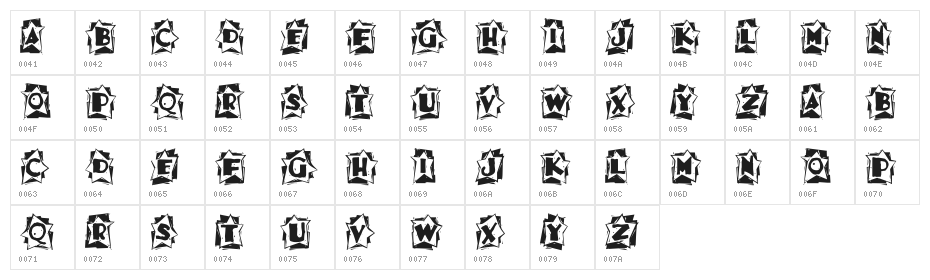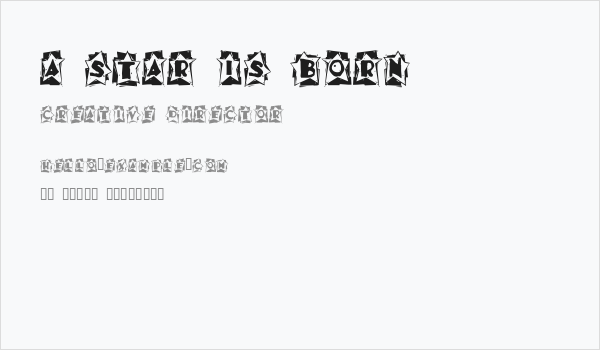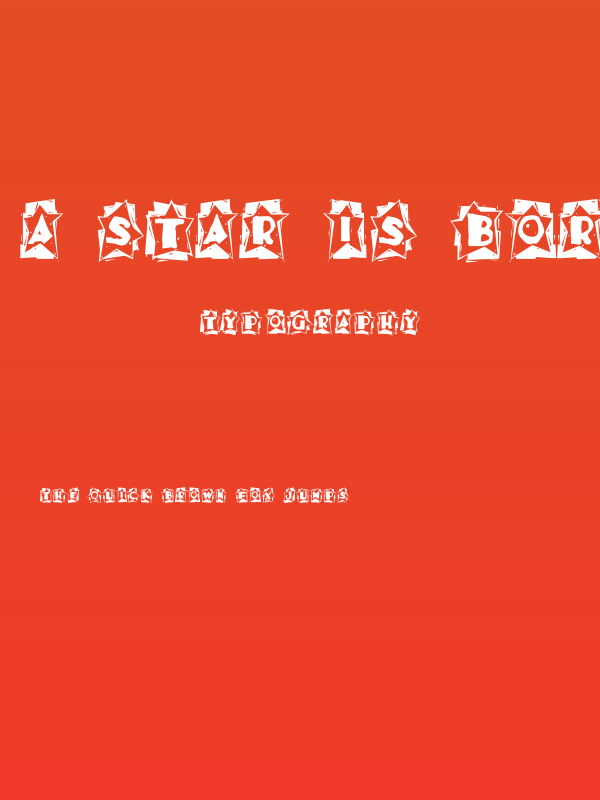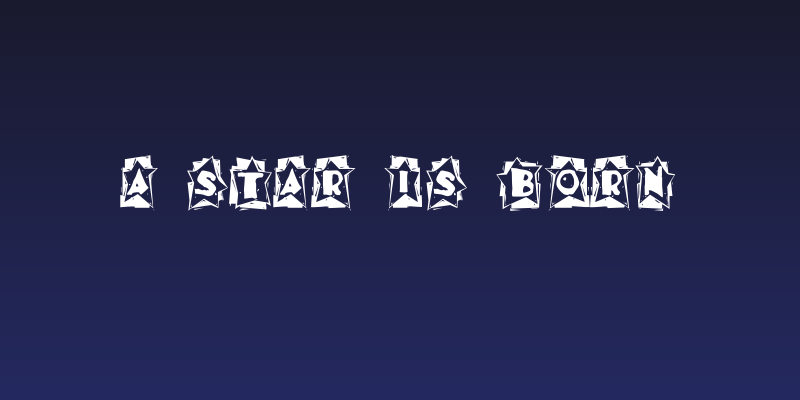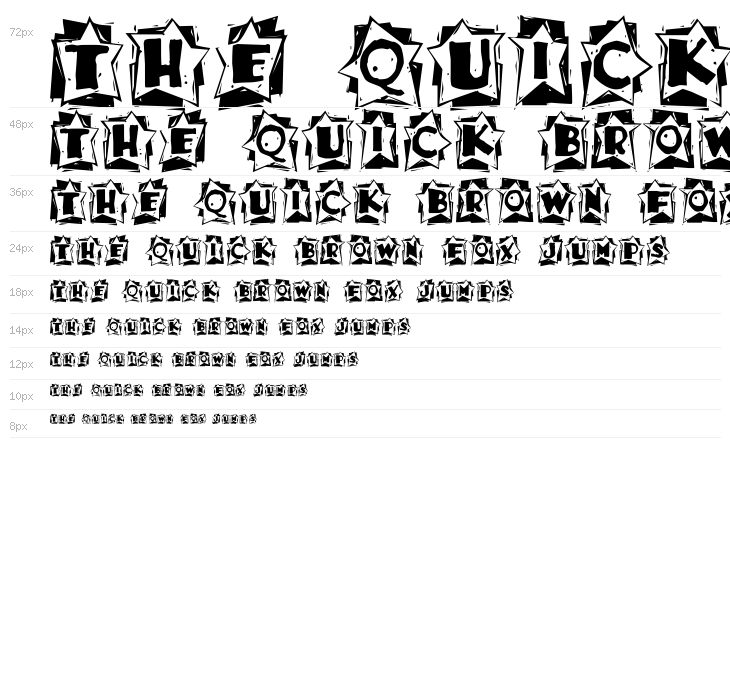
A Star is Born Font
A Star is Born Description
This font features a bold, decorative style with each character enclosed in a star-shaped outline. The letters are uppercase and have a playful, dynamic appearance, reminiscent of a graffiti or street art style. The bold strokes and sharp angles give it a striking and energetic look, making it ideal for attention-grabbing designs. The star outlines add a unique touch, enhancing the font's visual impact and making it suitable for creative and unconventional projects.
| Proposed Projects | Ideal for posters, album covers, event flyers, and any project requiring a bold, artistic touch. |